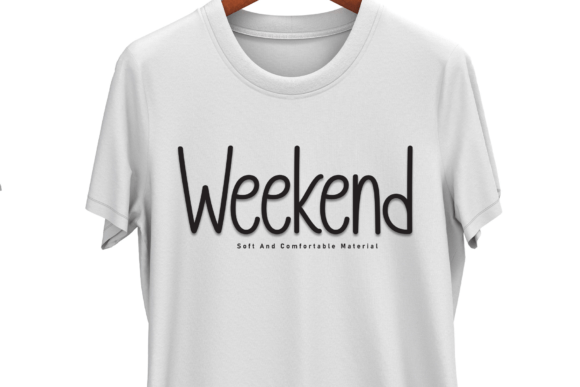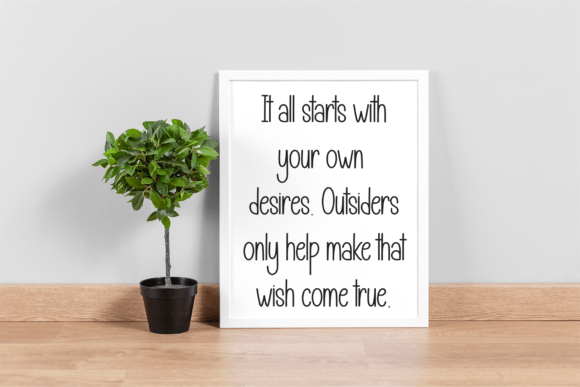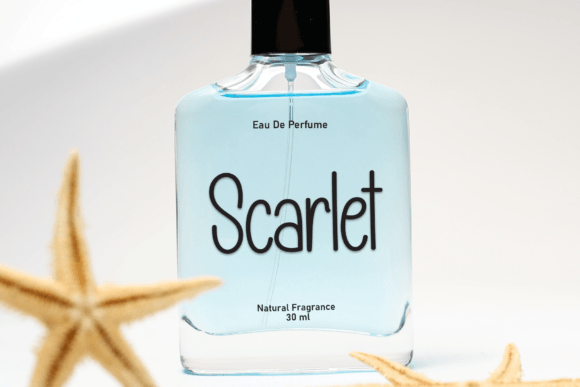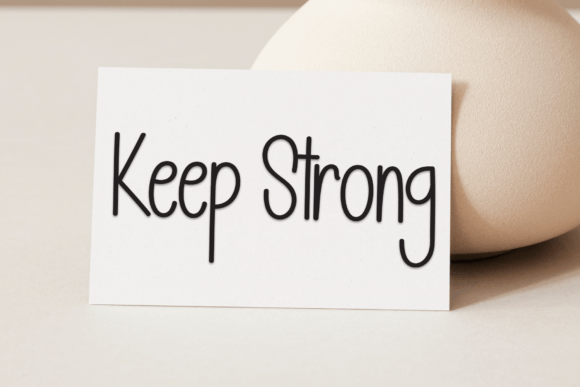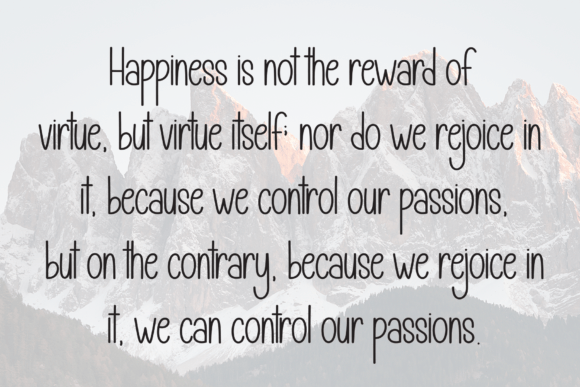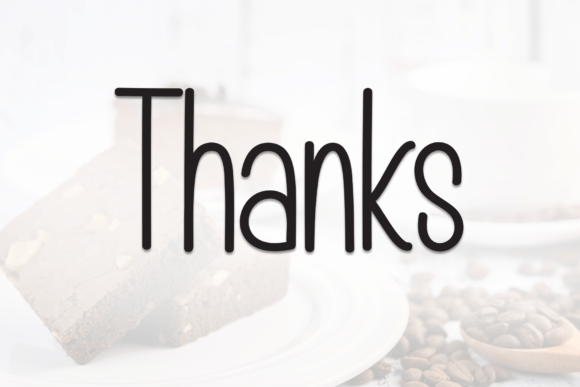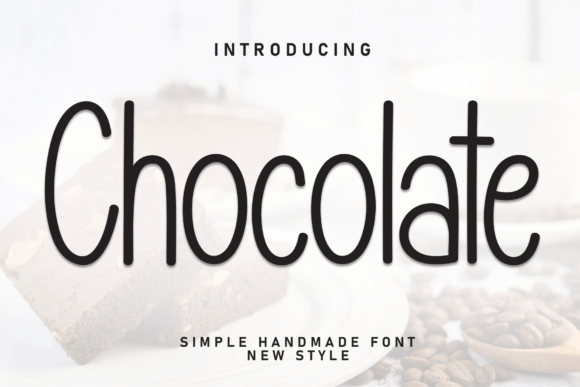
Introducing Chocolate Font: The Sweetest Handwritten Font for Your Designs
Are you looking for a font that can add a touch of sweetness and friendliness to your designs? Look no further than Chocolate Font, a delightful handwritten font that’s perfect for creating fun and playful designs. In this article, we’ll dive into the world of Chocolate Font and explore its features, uses, and benefits for designers and crafters.
What is Chocolate Font?
Chocolate Font is a sweet and friendly handwritten font that’s designed to bring a smile to your face. This font is characterized by its playful, cursive strokes and adorable letterforms that are sure to make your designs stand out. Whether you’re creating wedding invitations, greeting cards, or social media graphics, Chocolate Font is the perfect choice for adding a touch of whimsy and fun.
Features of Chocolate Font
- Cute and Fun: Chocolate Font is designed to be playful and fun, making it perfect for designs that require a lighthearted touch.
- Handwritten Style: This font features a beautiful, handwritten style that’s reminiscent of handwritten notes and letters.
- Versatile: Chocolate Font can be used for a wide range of designs, from wedding invitations to social media graphics.
- Easy to Read: Despite its playful style, Chocolate Font is easy to read and understand, making it perfect for body text and headlines.
Uses of Chocolate Font
Chocolate Font is a versatile font that can be used for a wide range of designs, including:
- Wedding Invitations: Add a touch of sweetness and romance to your wedding invitations with Chocolate Font.
- Greeting Cards: Create fun and playful greeting cards for birthdays, holidays, and special occasions.
- Social Media Graphics: Use Chocolate Font to create eye-catching social media graphics that are sure to grab attention.
- Party Decorations: Create fun and playful party decorations, such as banners and signs, with Chocolate Font.
Benefits of Using Chocolate Font
There are many benefits to using Chocolate Font in your designs, including:
- Unique and Playful Style: Chocolate Font adds a unique and playful touch to your designs that sets them apart from the rest.
Tips for Using Chocolate Font
Here are a few tips for using Chocolate Font in your designs:
- Pair with Other Fonts: Pair Chocolate Font with other fonts to create a unique and interesting contrast.
- Use for Headlines and Body Text: Use Chocolate Font for both headlines and body text to create a cohesive look.
Chocolate Font is a sweet and friendly handwritten font that’s perfect for designers and crafters looking to add a touch of fun and playfulness to their designs. With its cute and playful style, versatility, and ease of use, Chocolate Font is a great choice for a wide range of designs. Whether you’re creating wedding invitations, greeting cards, or social media graphics, Chocolate Font is sure to bring a smile to your face and make your designs stand out.